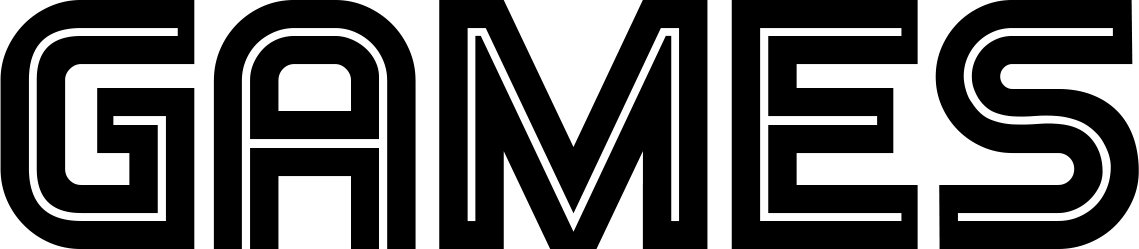
Games Font
By using this far too familiar outlined font, you will successfully give your designs a retro feel. Games is an all-caps font that is very loosely based on the iconic Sega logotype. You can create arcade-themed game posters, headings, book covers, and so on.
“Games” comes in Regular and Italic version!
It contains Serbian Cyrillic characters!